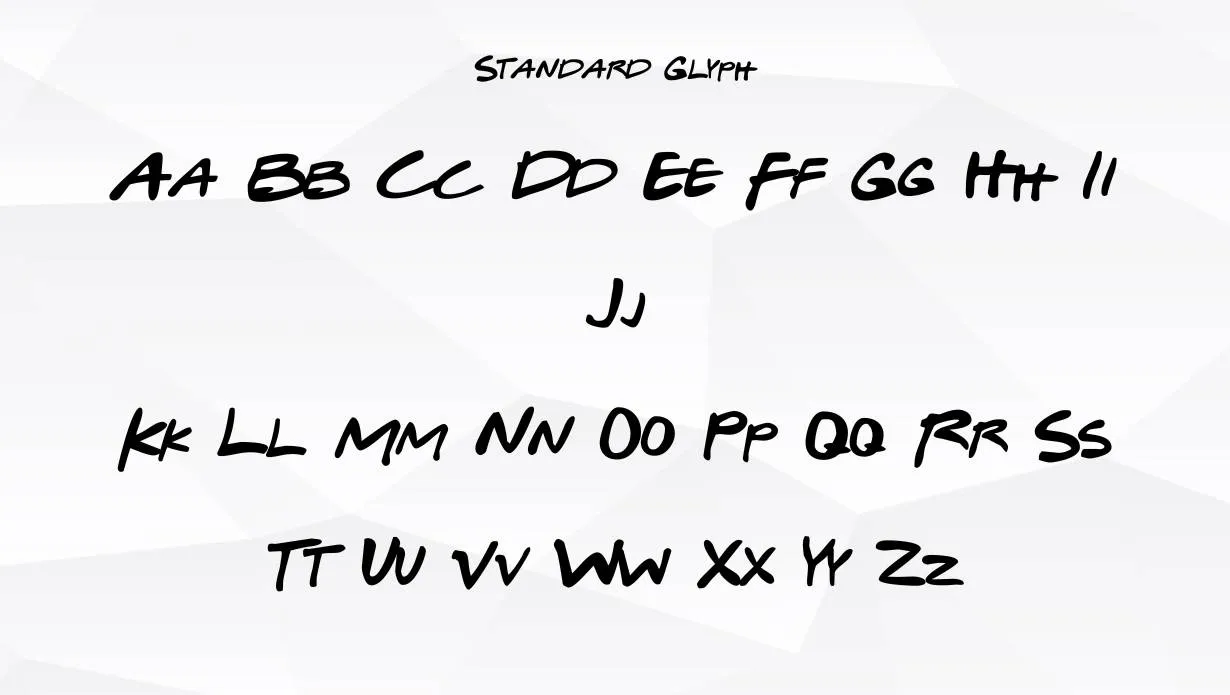
Friends Font can be used for creating posts on Instagram or Facebook etc. May also be used for writing fantastic quotes, designing shirts or mugs, and using it in titles or headlines. It can also be used in the body text as it is easy to read and understand.
The colors of these three dots are red, purple, and yellow which actually indicate those six characters that hang around in this series. Similarly, this typeface can also be used for best friend groups as the dots in it reveal friendship and love.
View of Friends Font